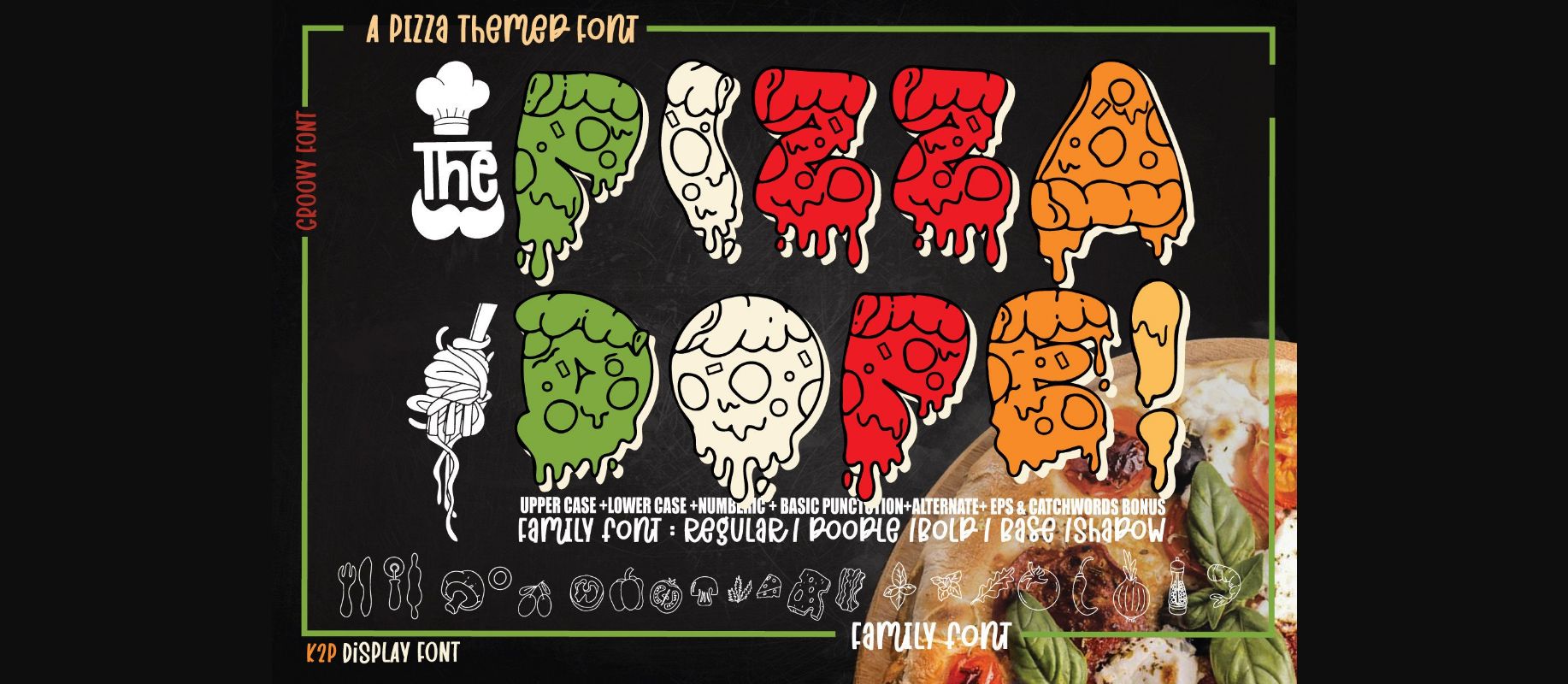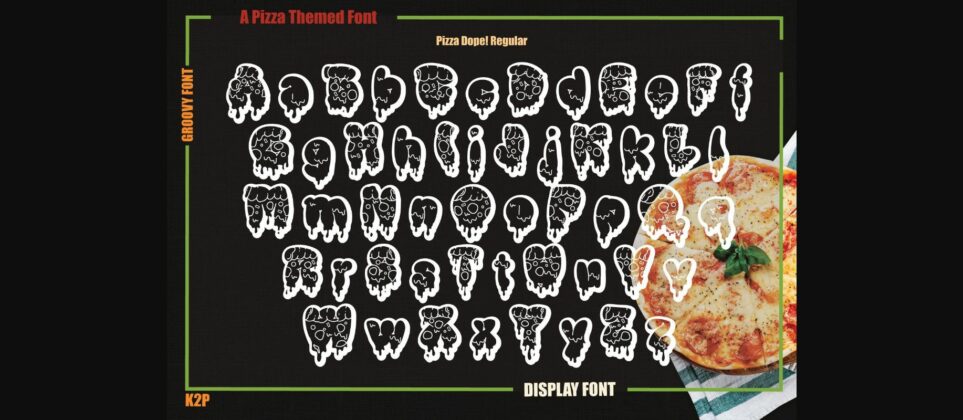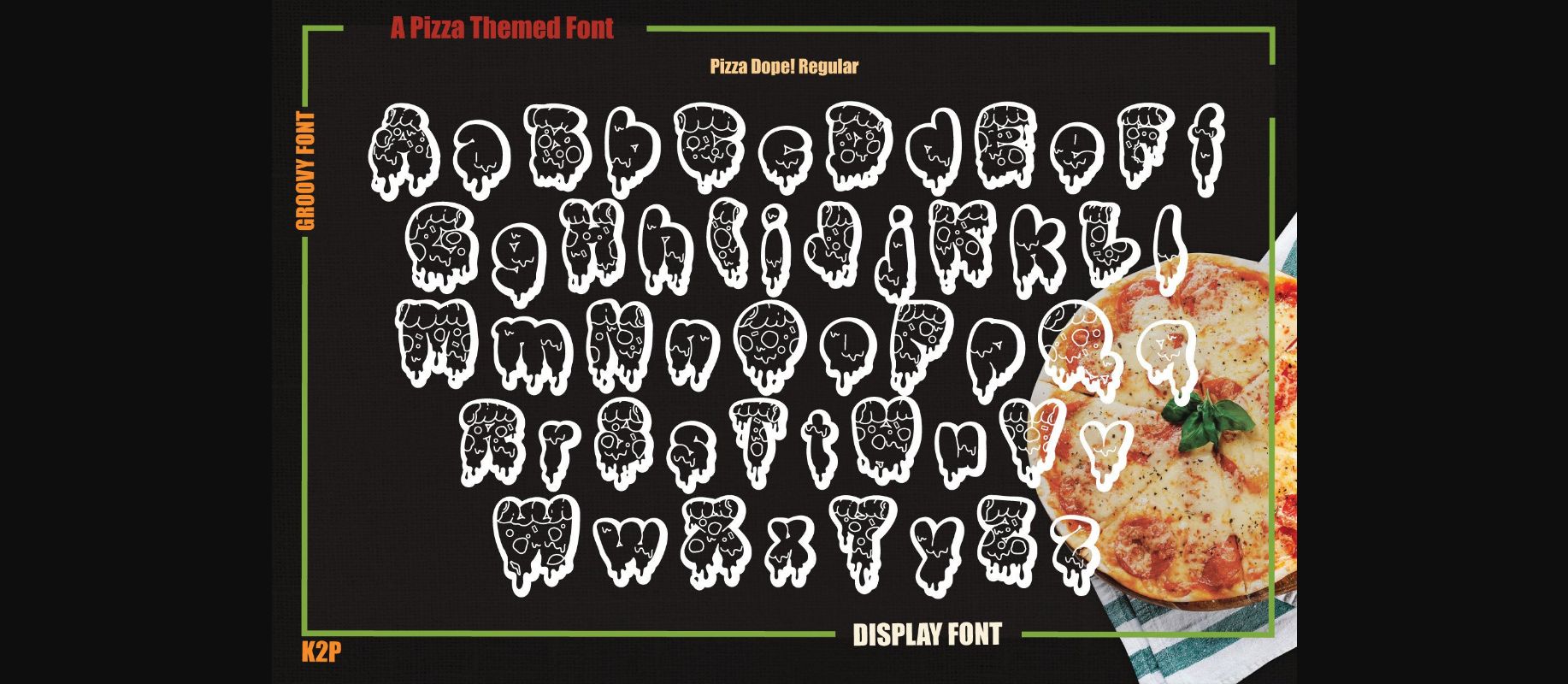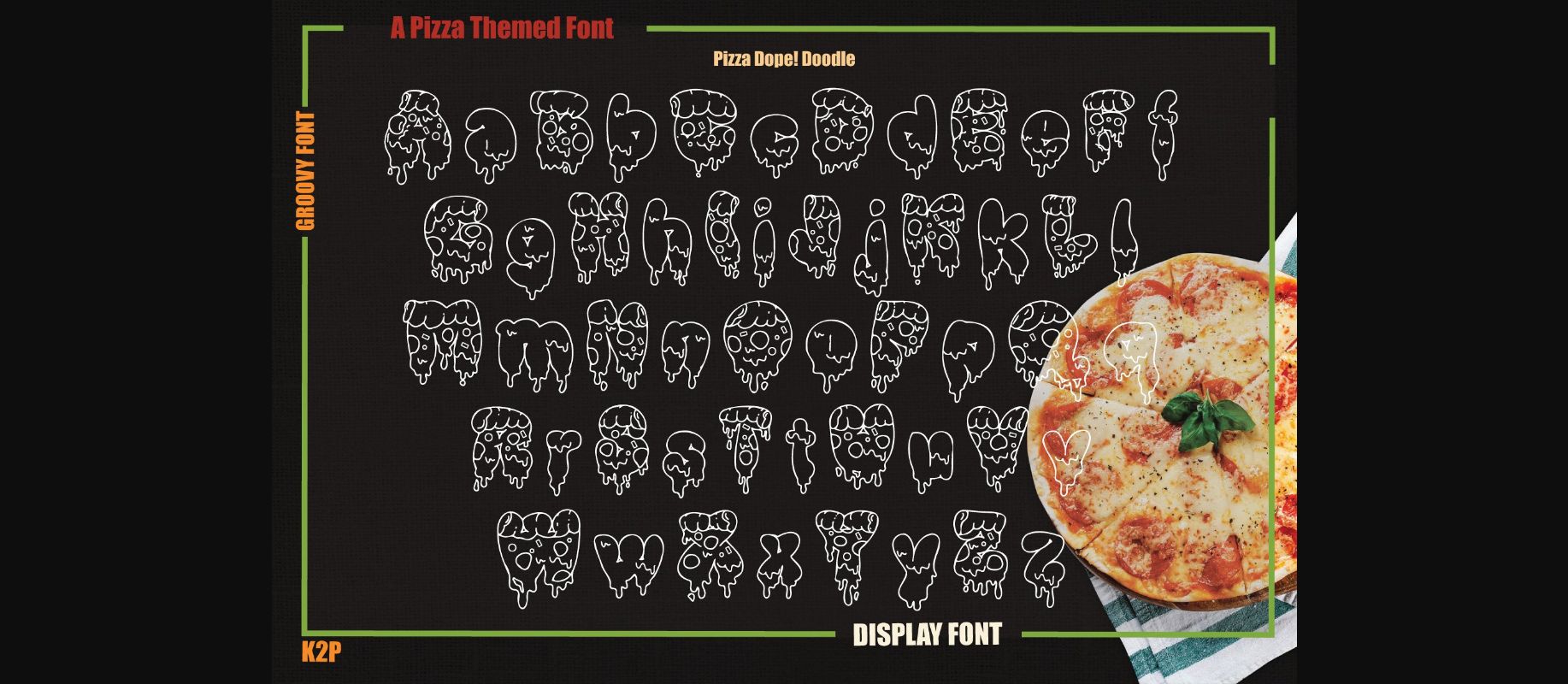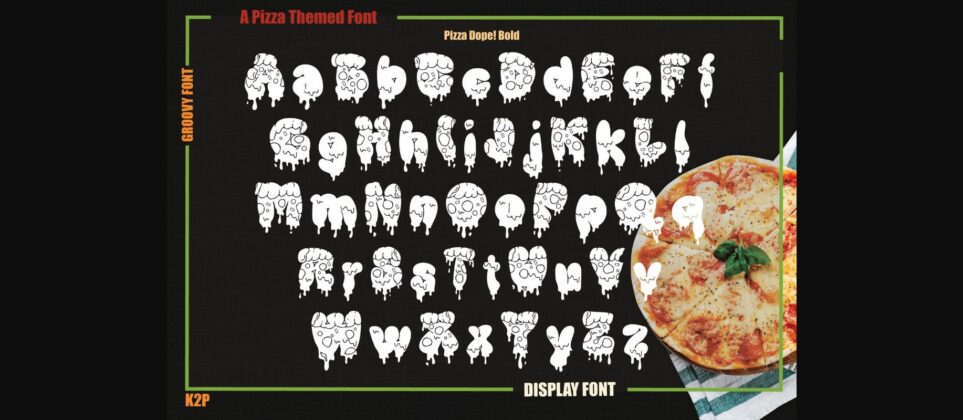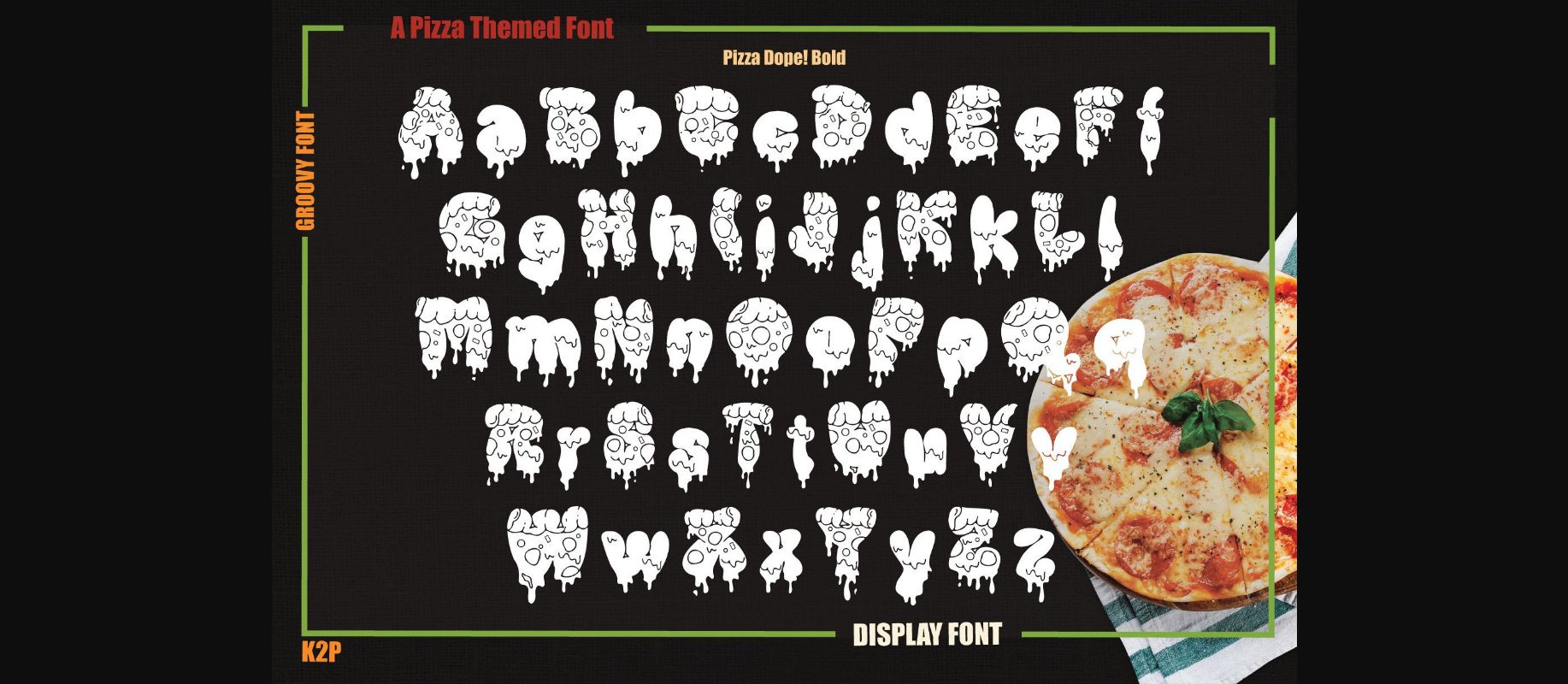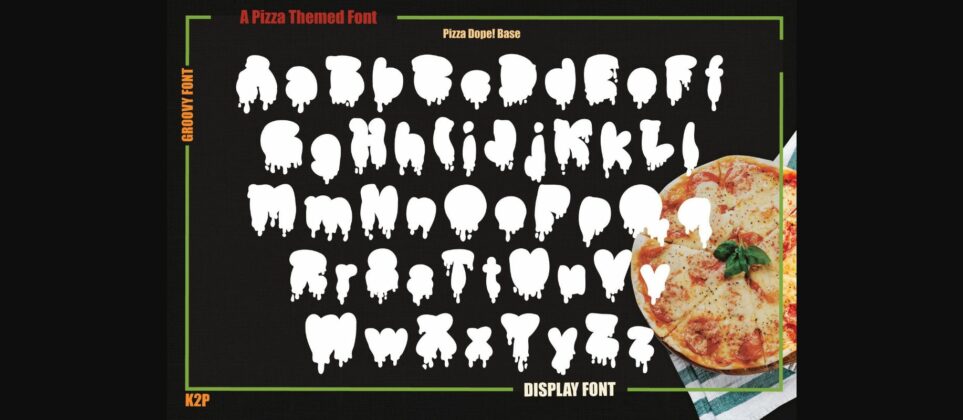
About Pizza Dope Font
Pizza Dope is a fun and incredibly unique decorative font. It can be used for various design ideas, particularly those related to Pizza Day.